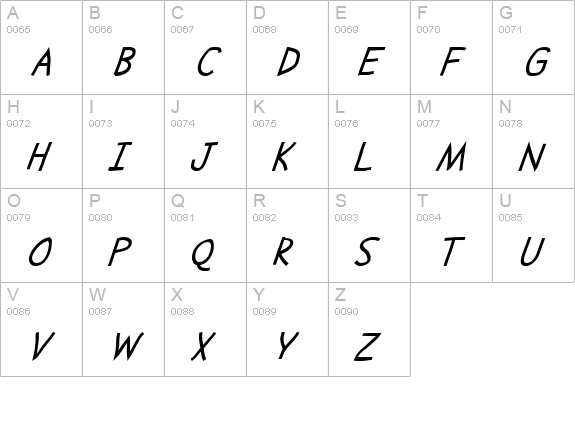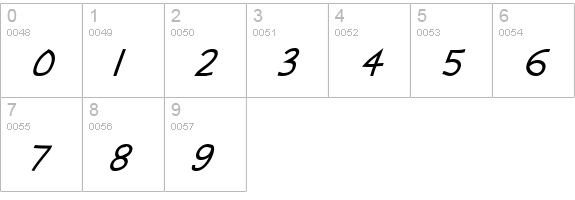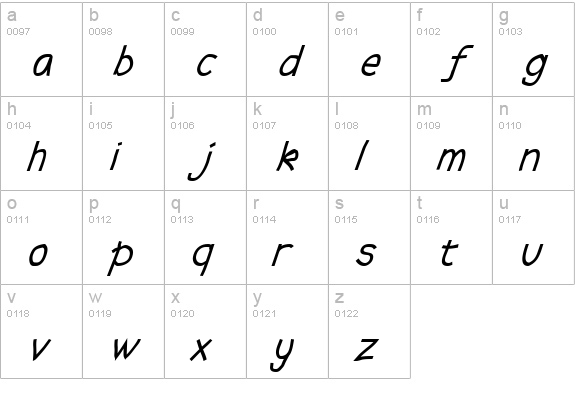
Abscissa Italic Font Details
Abscissa Italic is a distinctive, italic variant in the Abscissa typeface family \xE2\x80\x94 well suited to design and typography projects.
Abscissa Italic font is a stylish and elegant typeface that exudes sophistication and modernity. Its sleek and slanted letterforms give off a sense of movement and dynamism, making it perfect for adding a touch of flair to any design project. The delicate curves and distinct slant of the characters create a harmonious flow that is both eye-catching and easy to read. What sets Abscissa Italic font apart is that it is available for free download at FontsMarket.com, making it accessible to all designers and creatives looking to elevate their work with a touch of class. Whether you're designing a website, a logo, or a print layout, Abscissa Italic font is sure to make a statement and leave a lasting impression. Don't miss out on the opportunity to enhance your designs with this elegant and versatile typeface – download Abscissa Italic font today and take your projects to the next level.